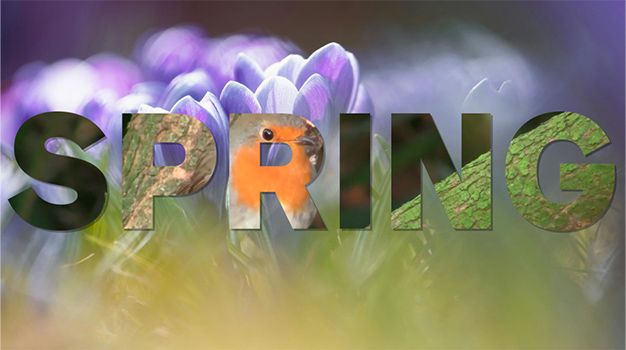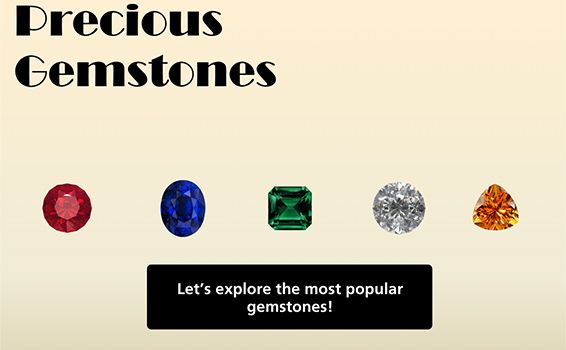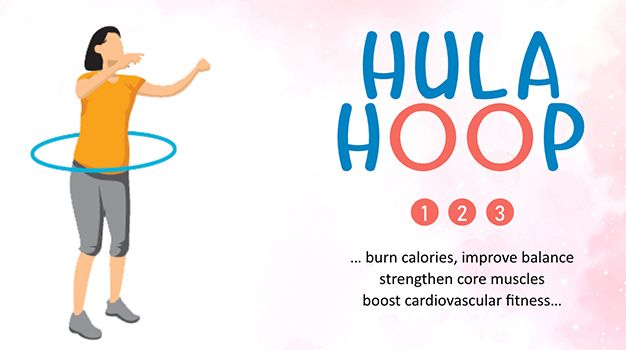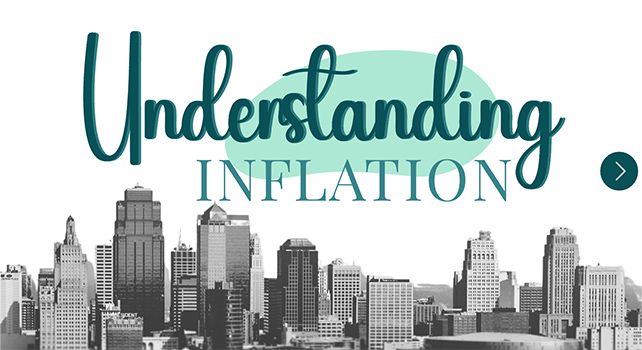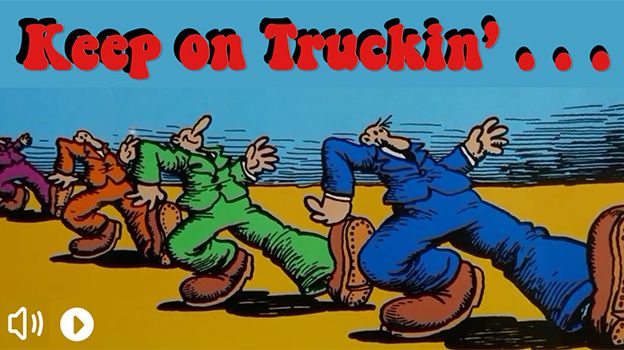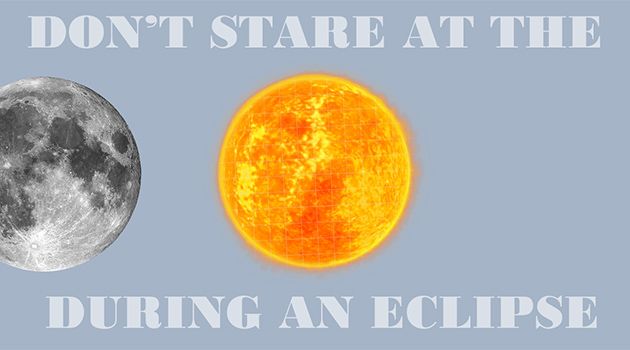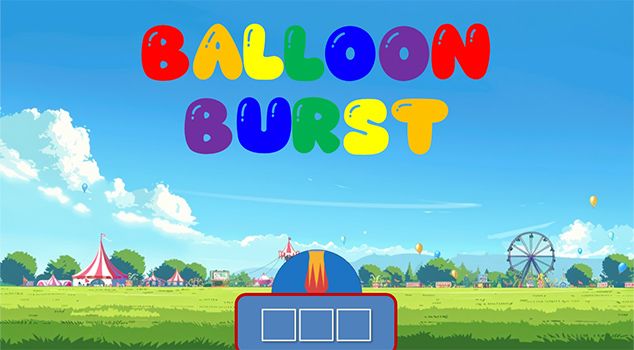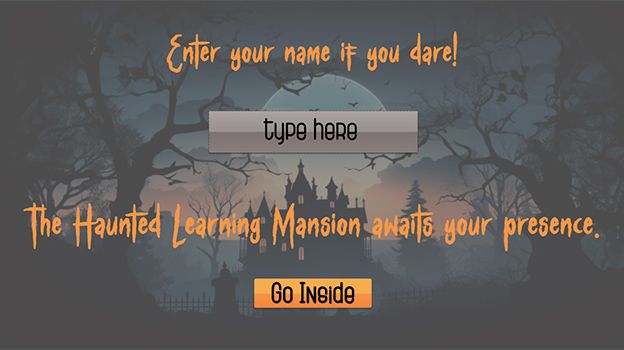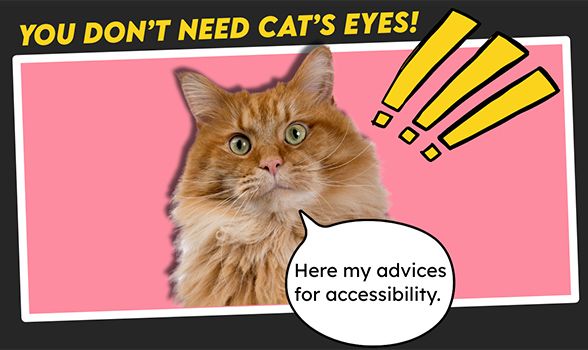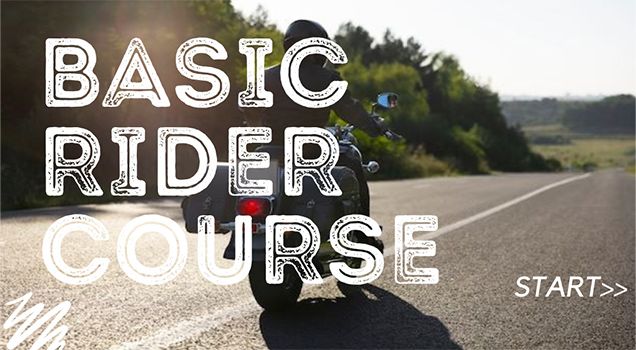
Using Bold Typography in E-Learning RECAP #456: Challenge | Recap
This week’s challenge asked course designers to show how they use big, bold, and chunky fonts in e-learning courses.
Share Your Big & Bold Typography Examples!